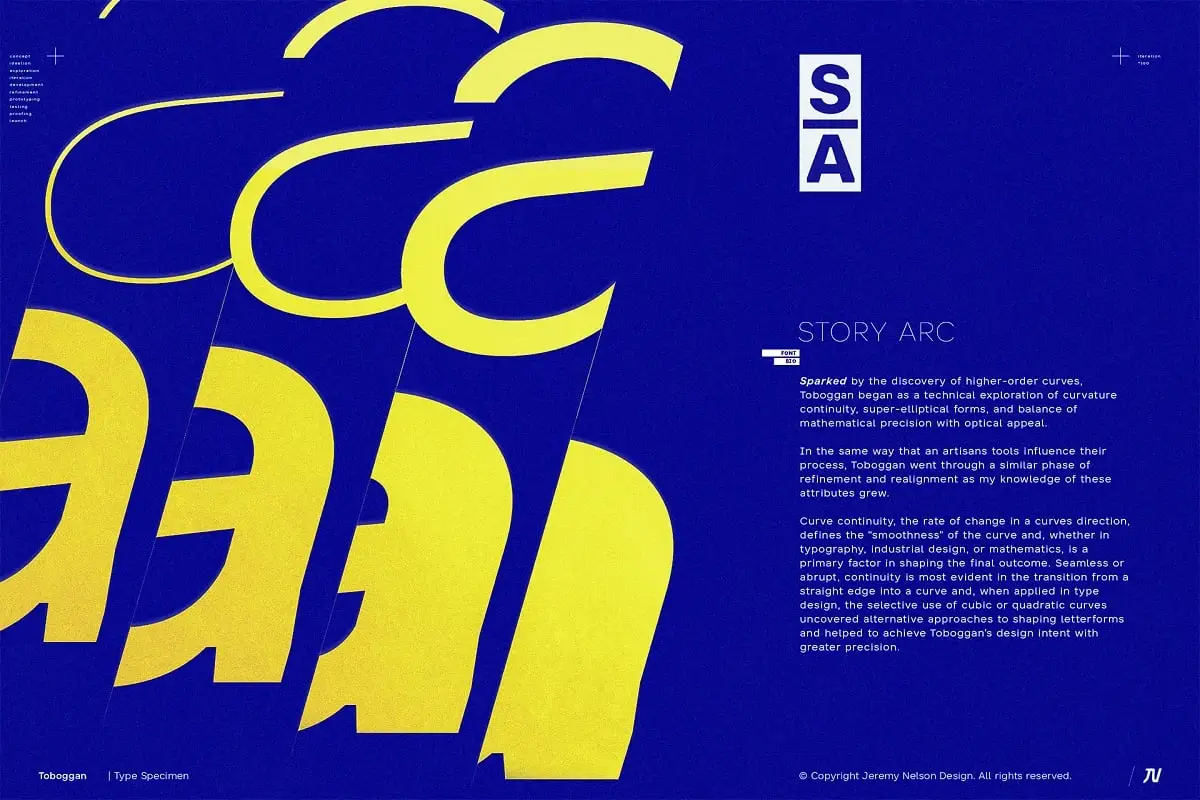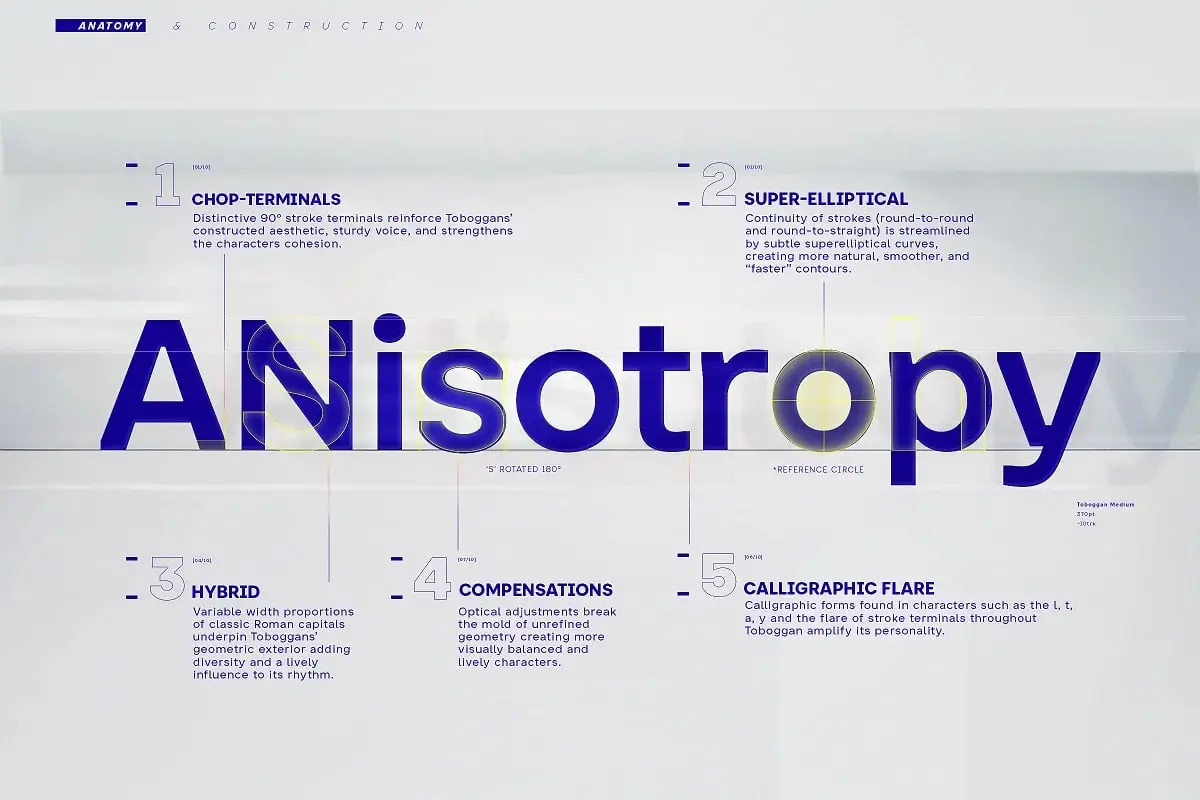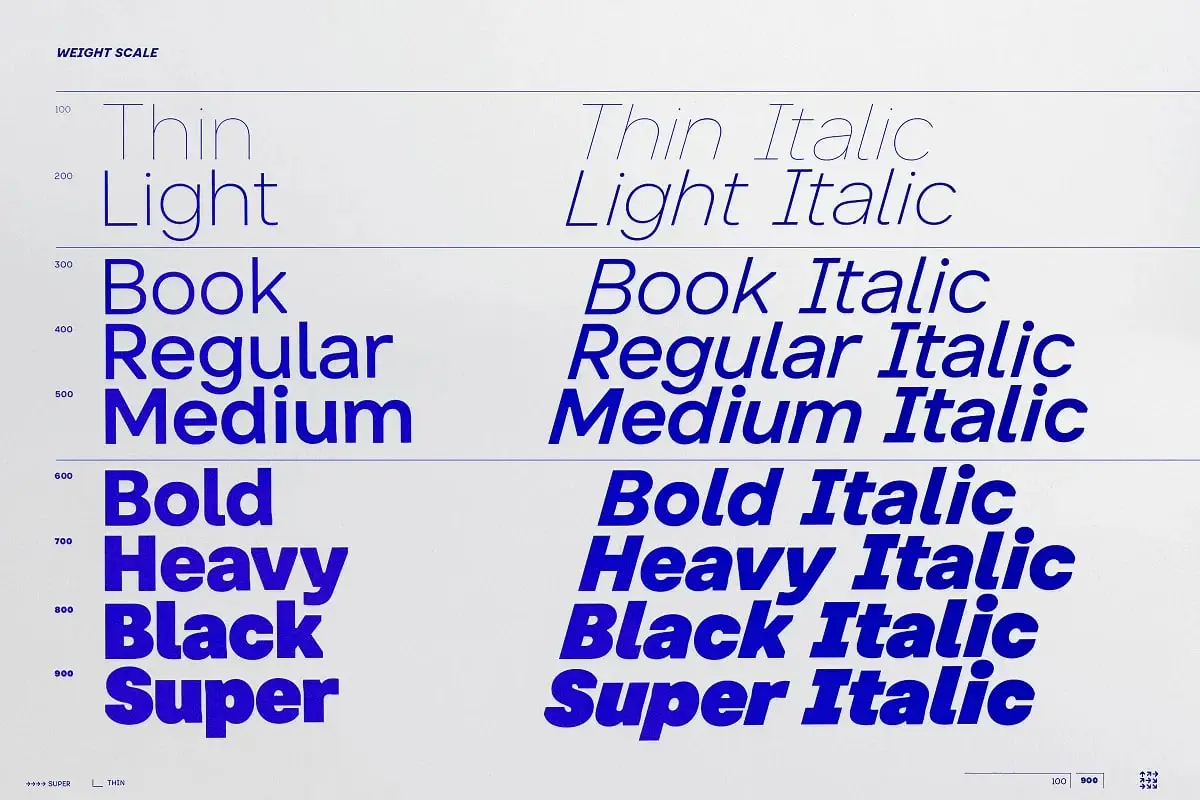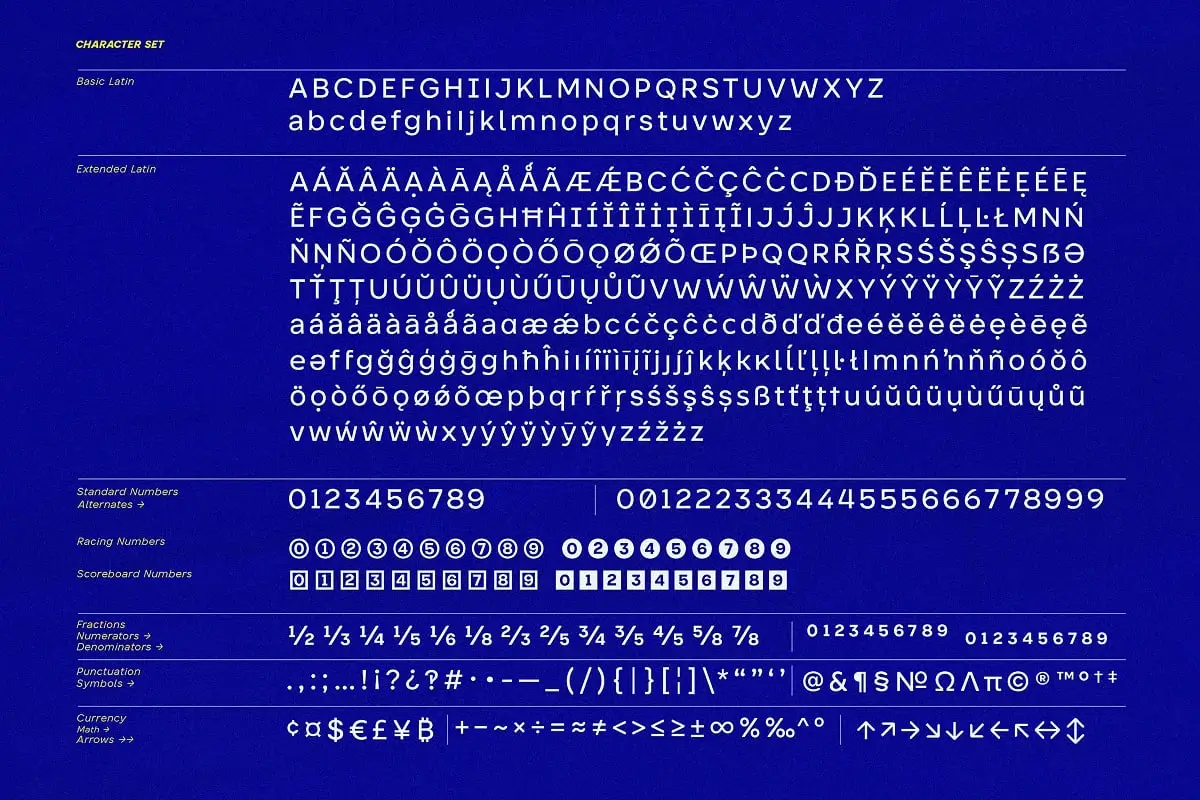
Jeremy Nelson Design-Toboggan Font Extended Latin
The Jeremy Nelson Design-Toboggan Font is a versatile typeface designed for a wide range of applications. With its extended Latin character set, this font is perfect for projects that require diverse language support. Whether you’re working on branding, logos, web design, or print materials, Toboggan brings a unique style that enhances any creative endeavor.
• Extended Latin character set for multilingual support
• Multiple weights for varied design needs
• Clean and modern aesthetic suitable for various applications
• Ideal for creating eye-catching logos and branding materials
• Perfect for web and print applications, ensuring readability and style